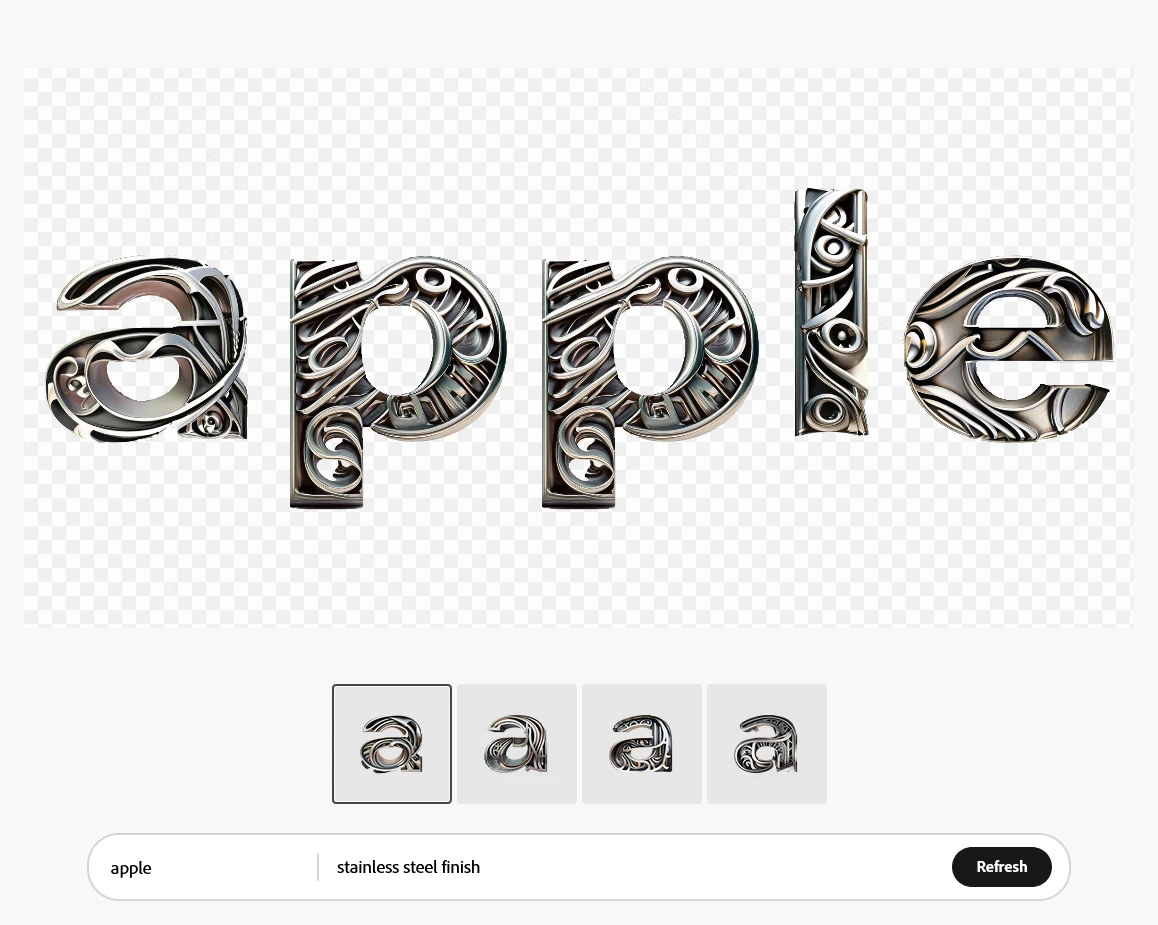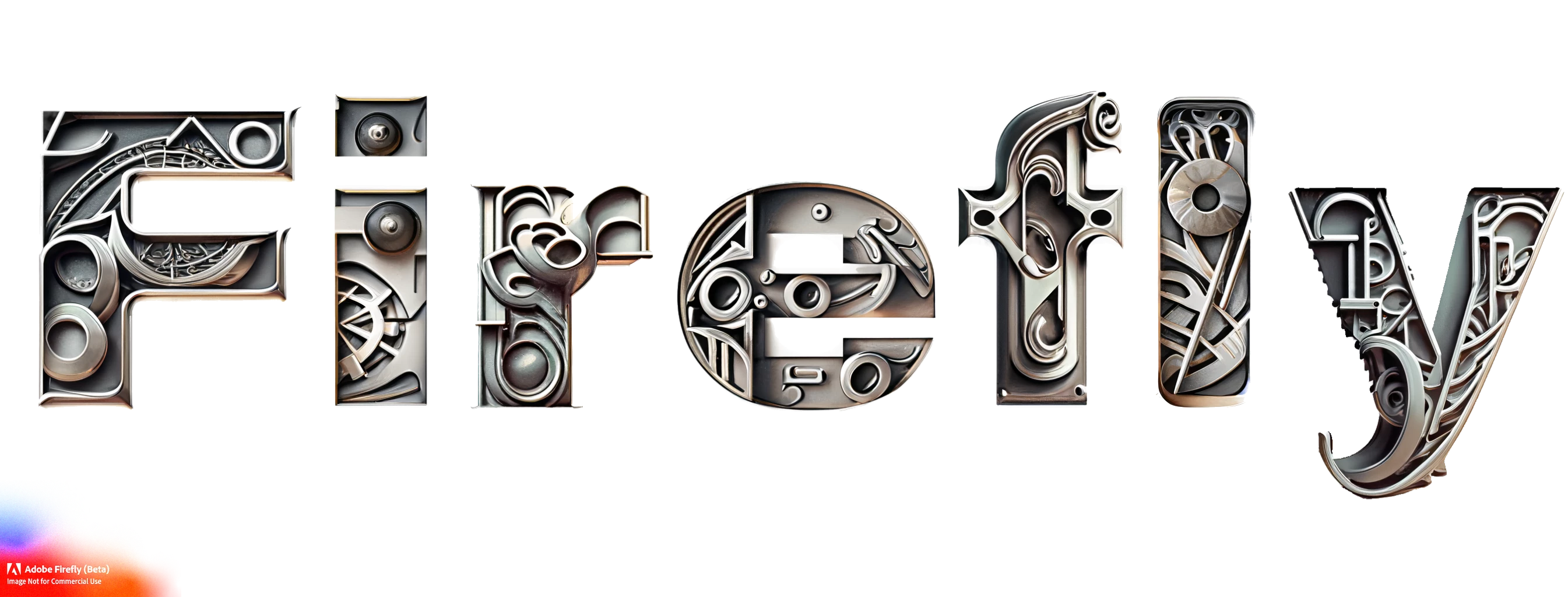
Font Variations
No matter what I type in the description field, the fonts have the same styling: swirly and smooth images within the letters. You can tell each variation was generated by the same source. Even when I state "not swirly" or "sharp," the results are the same.
I notice that there are a lot of white squiggly lines or objects that appear in the patterns that form within the fonts. It's hard to get rid of them, even if you include specific color pallet prompts. It would be good if there's an 'exclude' command or something,
In text effects, it would be good to have an option to change the 'scale' of the effect. Right now, it creates very detailed graphics within the text - it would be good to have a more abstract, generalised setting as well.
I would love to see more solid material options, every text effect is a whirly, twirly, windy effect. Some solid texture options would be great!
Maybe I'm just unable to find the right prompts, but I start to think that Adobe Firefly Effects is at the moment unable to make Fonts out of solid materials, without ornaments or other noisy disruptances.
For example, when I type in the prompts "solid industrial steel plate", I'd expect something like this:
or like this:
yet the results I get are full of playful ornaments and details
Even if I add the prompt "no ornaments", it doesn't change anything about the result.
I think the app would be much more usefull, if it'd be able to make solid textures as well.
Thank you for combining these threads. This is exactly the issue that I'm talking about. The AI assumes you want all sorts of swirls and edges inside the glyph outlines. It would be great to be able to start with a solid look and then dial in the level of details, swirls, edges and distortions to get to the exact final render.
Is there a secret in the Text Effects section to get words that don't have lumps, bumps, depth but instead have a smooth surface?
I'm able to get closer to the finish I want i.e., better results in Text to Image but then it is hit and miss as words are not always spelled correctly and sometimes refreshing gets the look I want but a correctly spelled word is now incorrect.
Will Text to Image have the ability to include accurately spelled words
-and/or-
Will Text Effects improve/expand upon its' ability and be able to provide smooth surfaces w/o swirls, cutouts, raised portions?
When creating textures for Text to Font there is no way to minize or eliminate the random, extra swirls and cut outs. I would like to be able to dial in who much random details are added to the render. Right now I get a lot of strange swirls, cut outs and globs that I cannot control even when I use words like "plain" "solid" "smooth" "no edges". I want to build up from the basic concept and add/subtract random detail.
@Tracy.H Thank you for clarifying the use of negatives. I only put that in there because I was getting swirly effects. My main complaint is just that there isn't enough variation regarless of the adjectives I use.